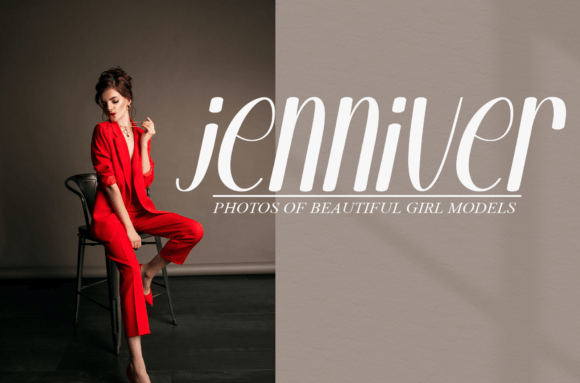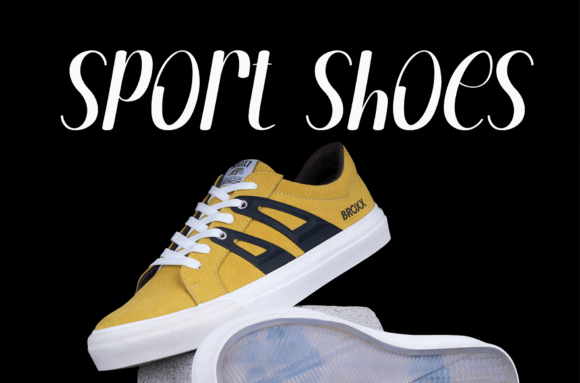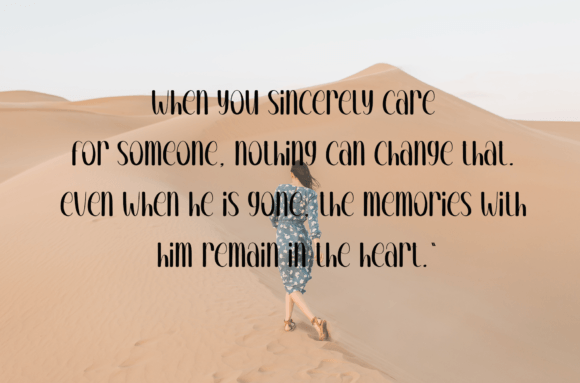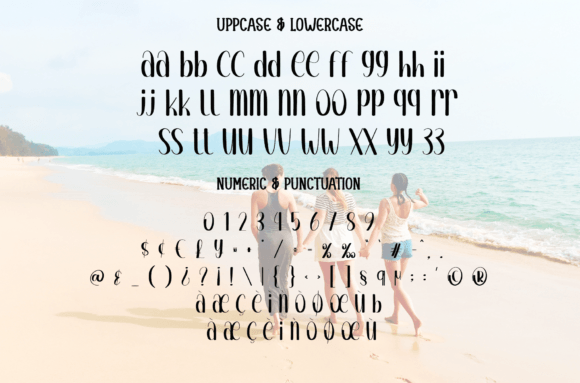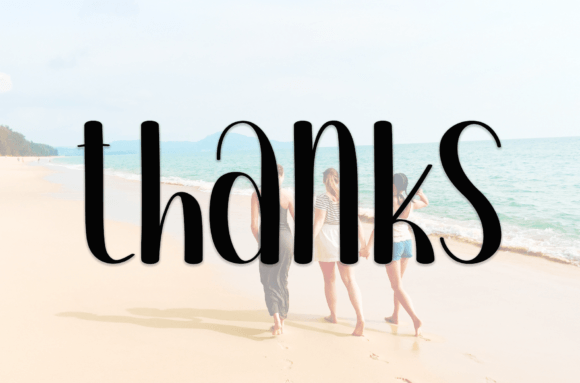
Introducing Happy Saturday Font: The Perfect Addition to Your Design Projects
Are you tired of using the same old fonts in your design projects? Do you want to add a touch of personality and whimsy to your creations? Look no further than Happy Saturday Font, a sweet and friendly handwritten font that’s perfect for a variety of design applications.
What is Happy Saturday Font?
Happy Saturday Font is a beautiful, handcrafted font that’s designed to bring a smile to your face. With its fresh and neat appearance, this font is ideal for writing wedding invitations, cards, or any other design that might need a fun touch. Whether you’re a designer, crafter, or DIY enthusiast, Happy Saturday Font is sure to become a favorite in your collection.
Key Features of Happy Saturday Font
- Sweet and Friendly Design: Happy Saturday Font features a sweet and friendly design that’s perfect for creating designs that are both fun and elegant.
- Handwritten Style: This font boasts a beautiful, handwritten style that’s reminiscent of a personal letter or a heartfelt note.
- Fresh and Neat Appearance: With its clean lines and fresh appearance, Happy Saturday Font is perfect for designs that require a touch of sophistication and elegance.
- Versatile: This font is versatile and can be used for a wide range of design projects, from wedding invitations and cards to posters, flyers, and more.
Why Choose Happy Saturday Font?
There are many reasons why Happy Saturday Font stands out from the crowd. Here are just a few:
- Unique and Eye-Catching: Happy Saturday Font is a unique and eye-catching font that’s sure to grab attention and leave a lasting impression.
- Easy to Read: Despite its playful design, Happy Saturday Font is easy to read and understand, making it perfect for designs that require a clear and concise message.
- Customizable: With Happy Saturday Font, you can customize your designs to fit your personal style and brand. Experiment with different colors, sizes, and formatting options to create a look that’s all your own.
How to Use Happy Saturday Font in Your Designs
Using Happy Saturday Font in your designs is easy. Here are a few ideas to get you started:
- Wedding Invitations: Happy Saturday Font is perfect for wedding invitations, adding a touch of romance and whimsy to your designs.
- Cards and Stationery: Use Happy Saturday Font to create beautiful cards and stationery that are sure to delight your friends and family.
- Posters and Flyers: Add a playful touch to your posters and flyers with Happy Saturday Font, making them stand out from the crowd.
- Digital Designs: Happy Saturday Font can also be used in digital designs, such as social media graphics, blog posts, and more.
Tips and Tricks for Getting the Most Out of Happy Saturday Font
Here are a few tips and tricks for getting the most out of Happy Saturday Font:
- Experiment with Colors: Try pairing Happy Saturday Font with different colors to create a unique and eye-catching design.
- Play with Size and Formatting: Experiment with different sizes and formatting options to add visual interest to your designs.
- Combine with Other Fonts: Happy Saturday Font can be paired with other fonts to create a unique and visually appealing design.
In conclusion, Happy Saturday Font is a sweet and friendly handwritten font that’s perfect for adding a touch of personality and whimsy to your design projects. With its fresh and neat appearance, this font is ideal for writing wedding invitations, cards, or any other design that might need a fun touch. Whether you’re a designer, crafter, or DIY enthusiast, Happy Saturday Font is sure to become a favorite in your collection.